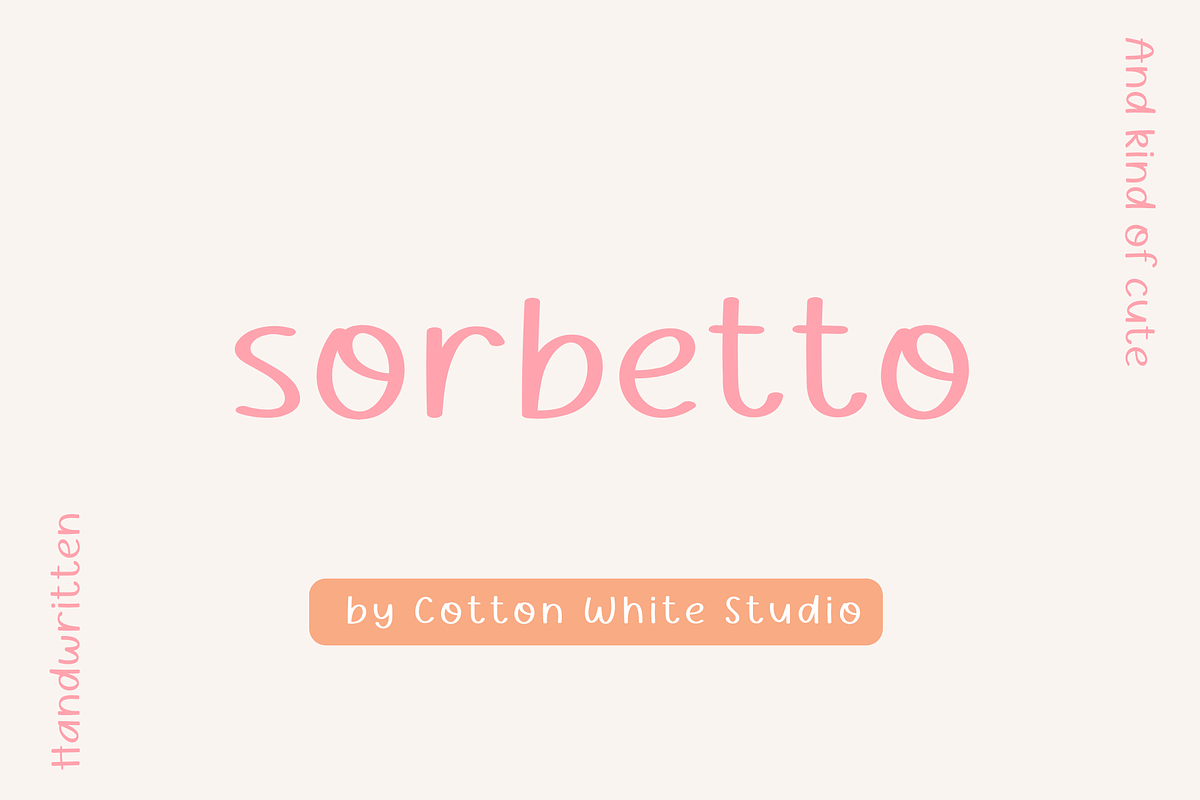
The Sorbetto Font Free Download is a charming and elegant typeface designed to add a touch of sweetness and sophistication to your designs. With its smooth curves and clean lines, this font is perfect for creating refined logos, invitations, branding, and creative projects. Whether you're working on a wedding invite, a luxury brand, or social media graphics, Sorbetto offers a beautiful, timeless appeal.
Sorbetto Font Free Download is ideal for designers looking to add a delicate, stylish font to their work. Its elegant, yet simple letterforms are perfect for modern and sophisticated designs. Download this versatile and graceful font today and infuse your projects with a touch of class and beauty!